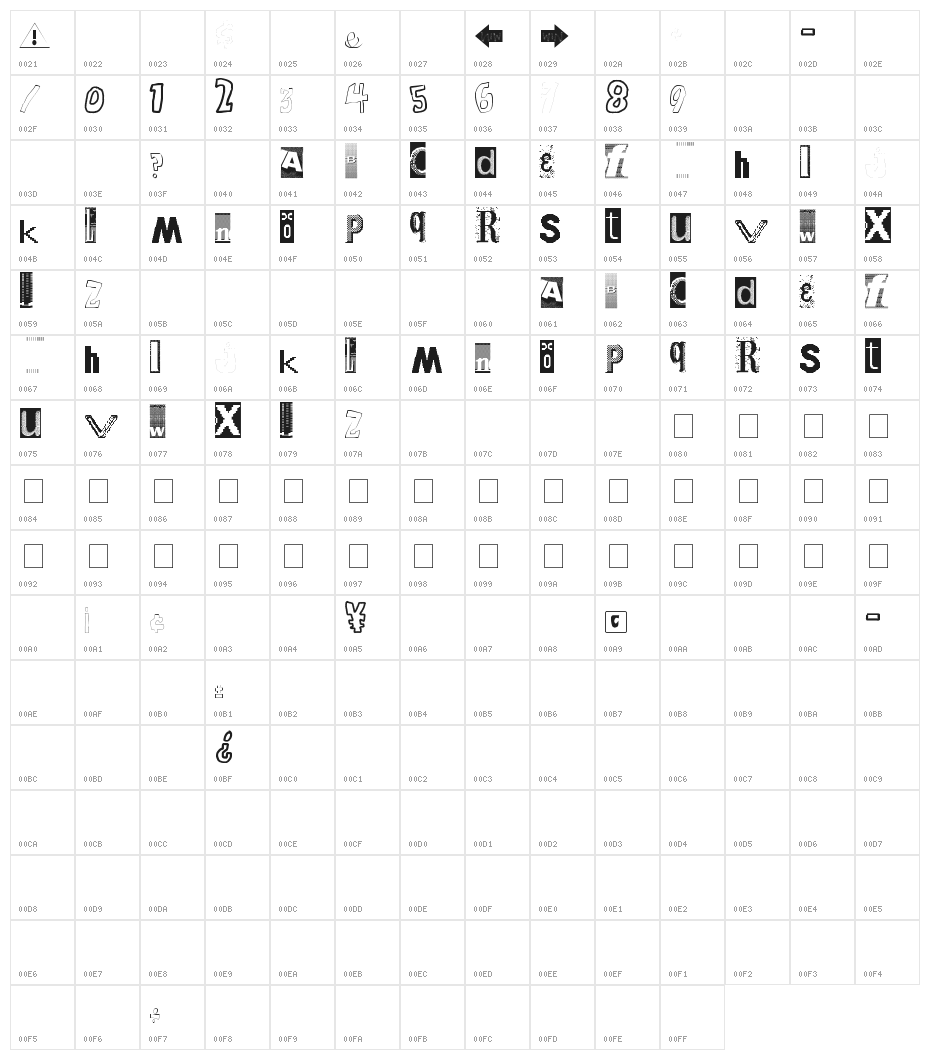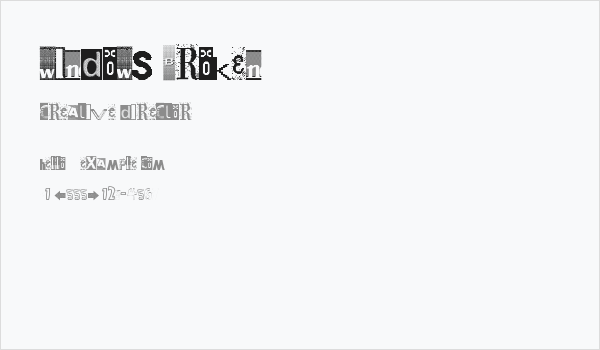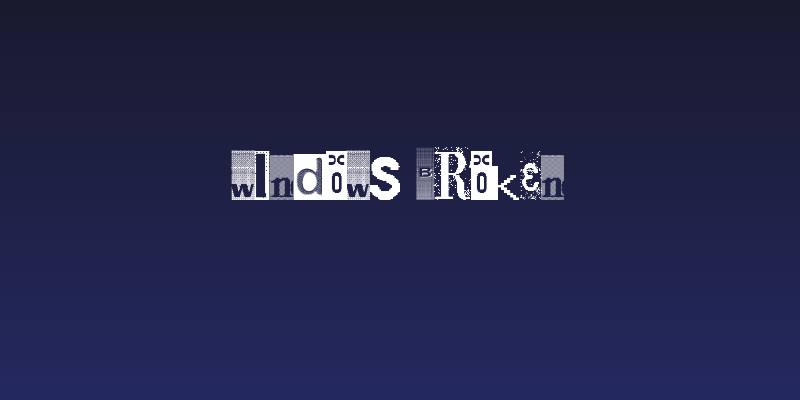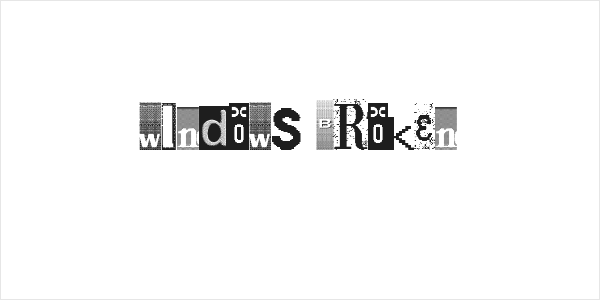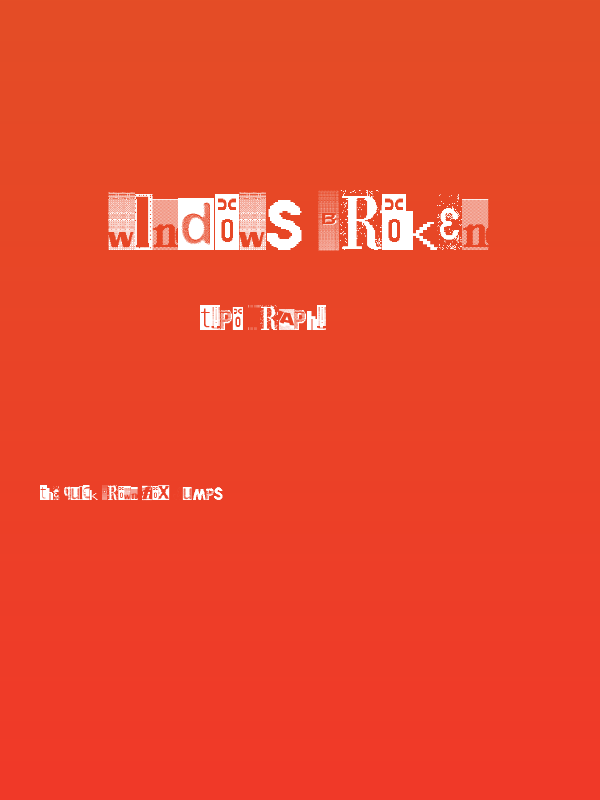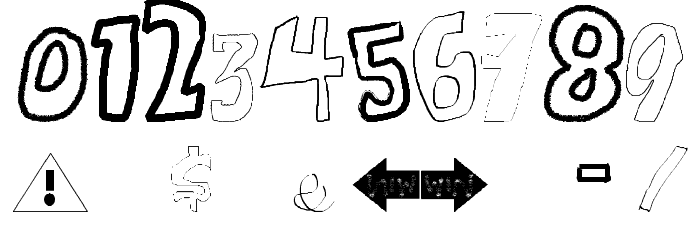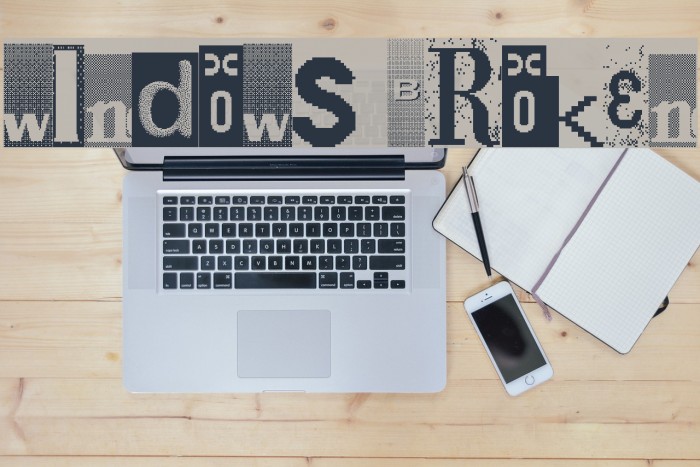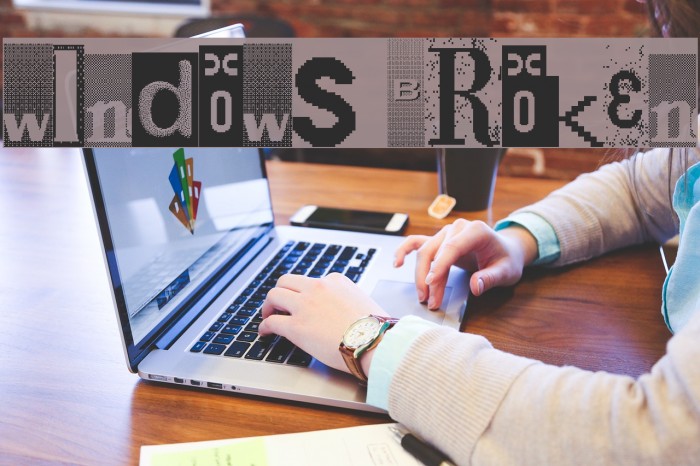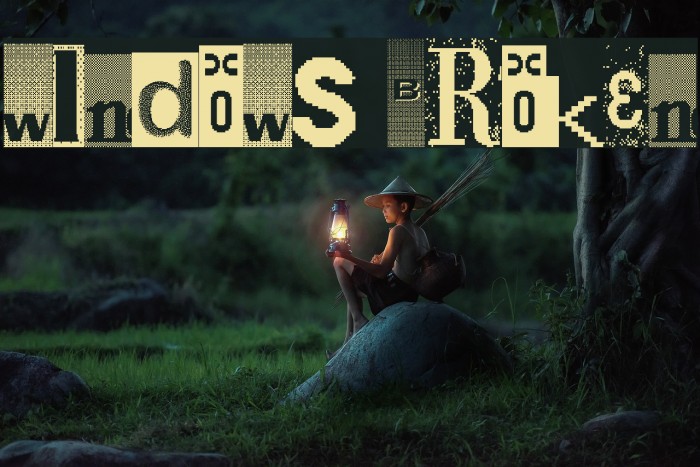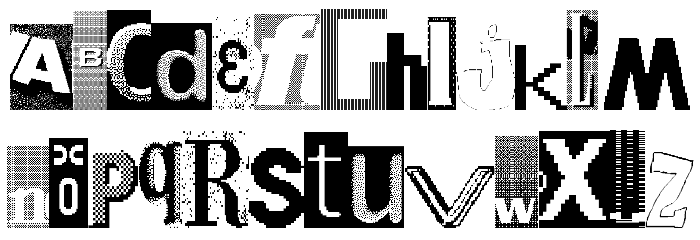
Windows Broken Font
Windows Broken Description
This font is a highly eclectic and visually striking collection of characters, each with a unique and fragmented style. The letters and numbers appear as if they are pieced together from various sources, creating a chaotic yet artistic effect. The uppercase and lowercase letters exhibit a mix of bold, thin, and textured elements, with some characters featuring halftone patterns and others showcasing solid fills. The numerals are equally diverse, with each digit presenting a different artistic interpretation. Special characters are creatively designed, adding to the overall theme of disruption and creativity. This font is perfect for projects that require a bold statement or an unconventional aesthetic.
| Use Case | Headlines, Artistic projects, Posters |
| Proposed Projects | Ideal for album covers, posters, artistic projects, and any design needing a bold, unconventional look. |